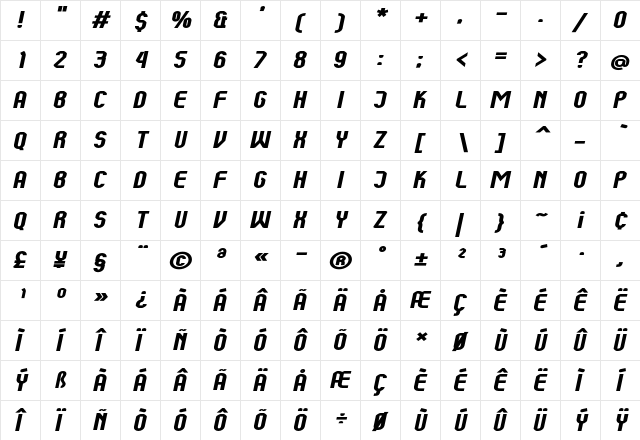
Kumba Bold Expanded Italic
Design Context for Kumba Typeface
Kumba is a composed and adaptable typeface that performs quietly and consistently across a wide range of design contexts. The slanted form adds forward momentum and visual energy. The heavy weight commands attention and anchors typographic hierarchies.
Pro Tip: Try Kumba for annotation and caption copy alongside an upright companion — the contrast in angle creates a dynamic but ordered typographic system.